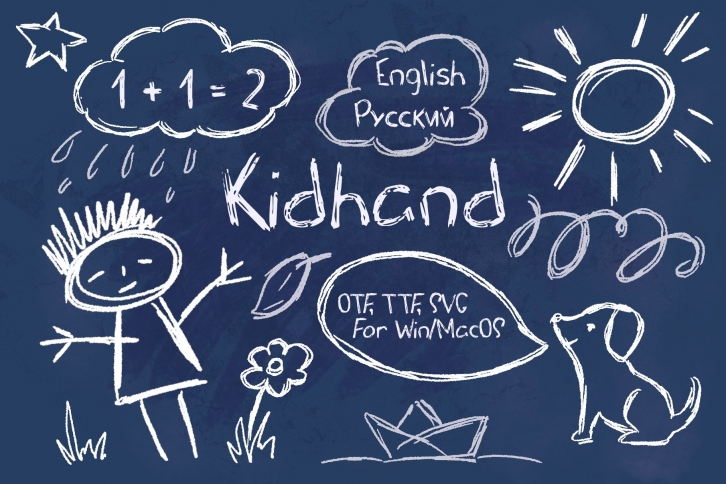
Kid Hand Chalk Textured Scribbled Script is a beautiful font that was designed by Rabbit And Pencil. It's a great choice for designers and creatives who need such a font. It was released on May 18, 2020 and the file size is 14.83 MB. Kid Hand Chalk Textured Scribbled Script may give a more youthful, expressive and casual look to your project. It is a very beautiful, refined, elegant, and high-quality font.